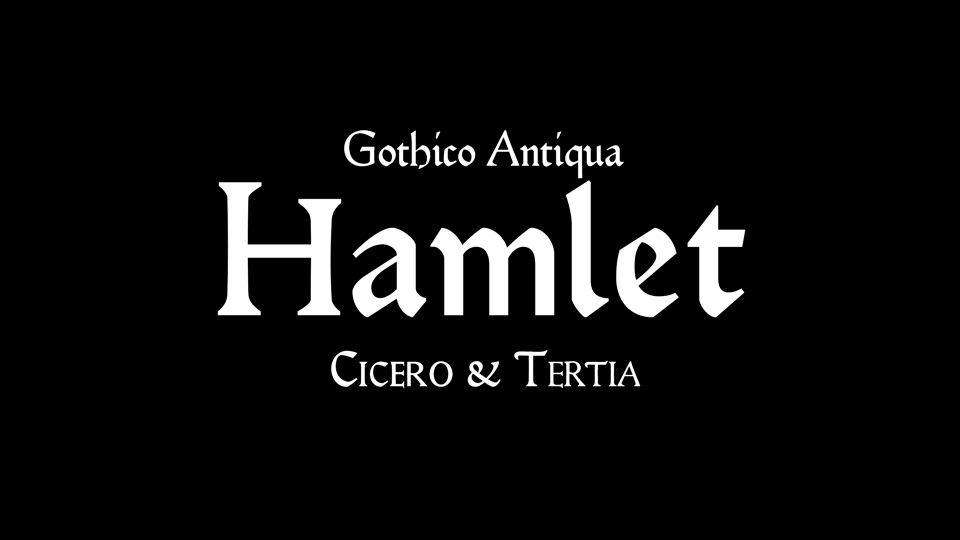
Download Hamlet fonts (also named Kessler-Blackletter), Hybrid designed by Edward Johnston, cut in three sizes (10, 12 and 18 pt) by Edward Prince for William Shakespeare’s Hamlet. Published by Harry Kessler’s Cranach Press in Weimar in 1929.